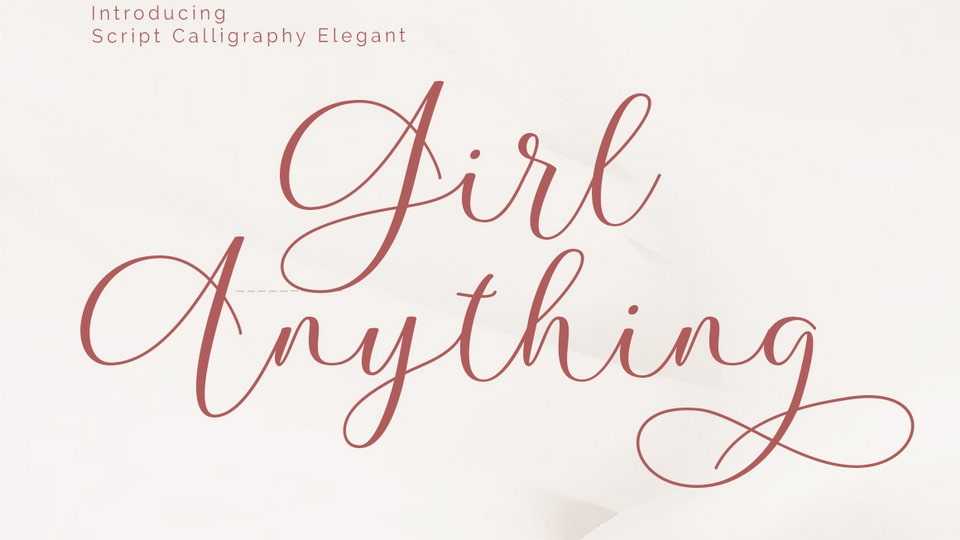
Download Girl Anything font, the latest modern calligraphy love theme. Updated with special glyphs that have been given a combination of fantasy and handwritten ink.